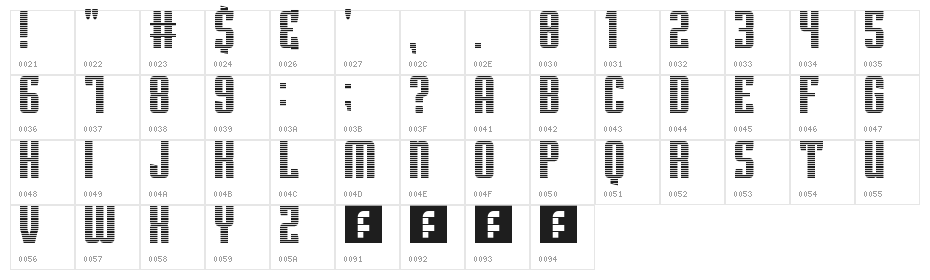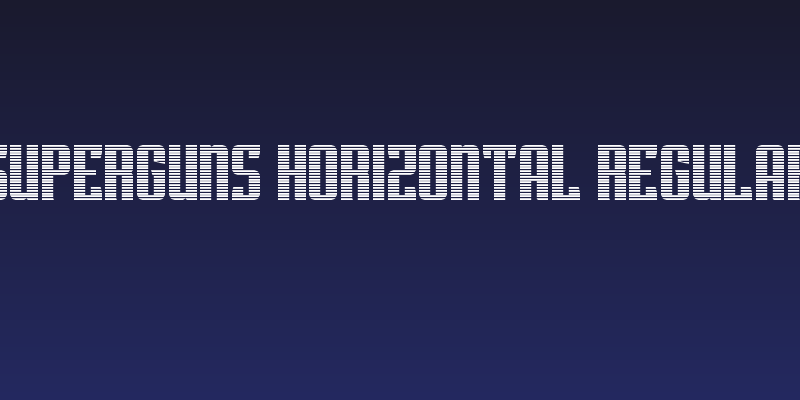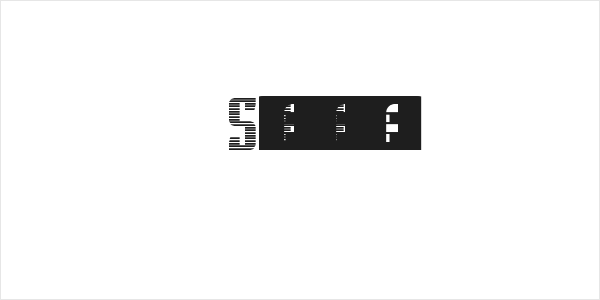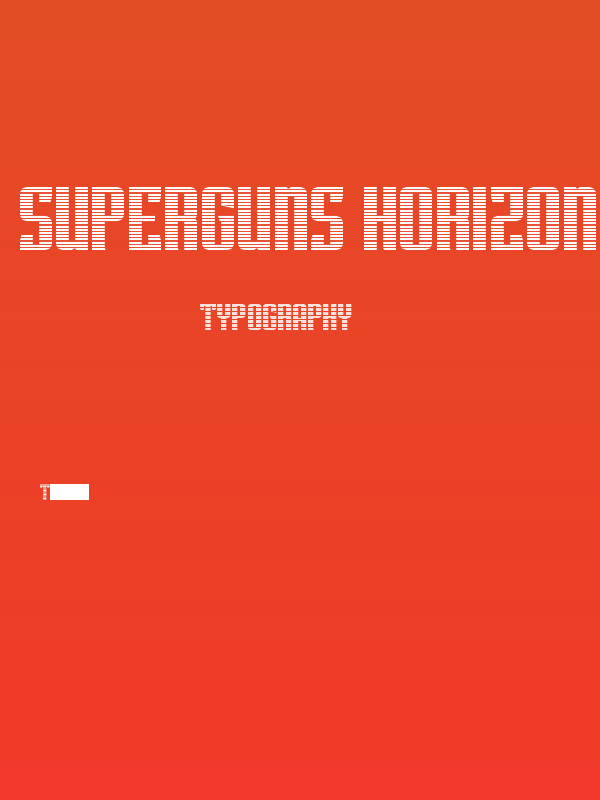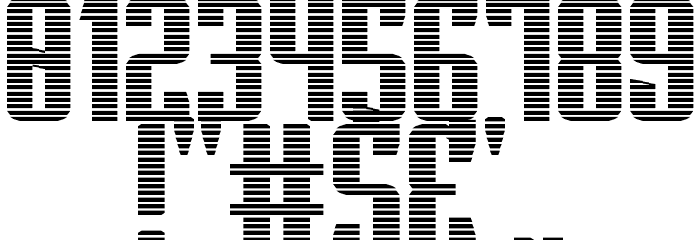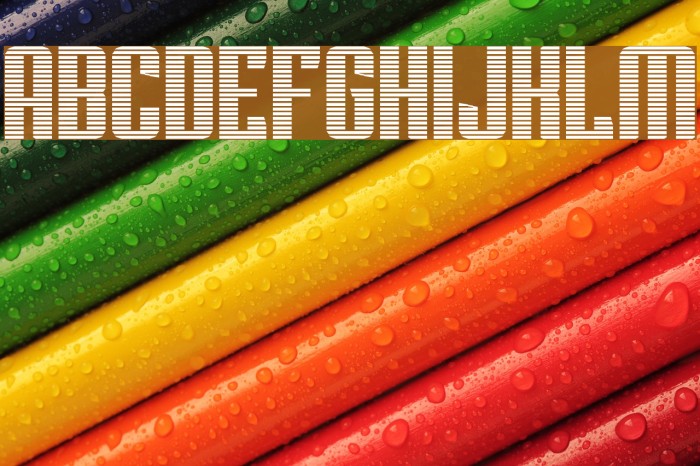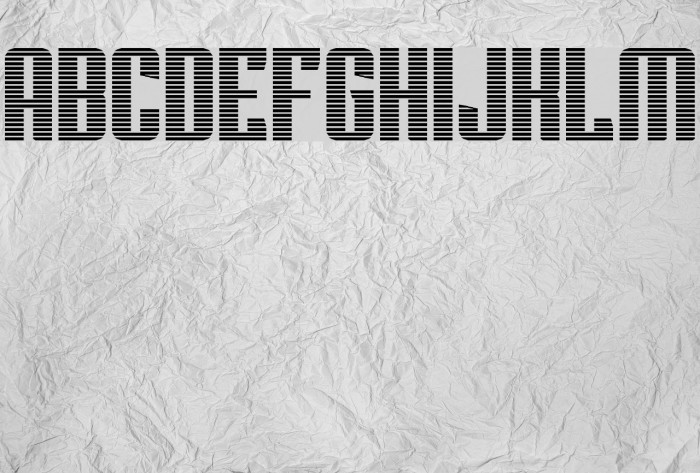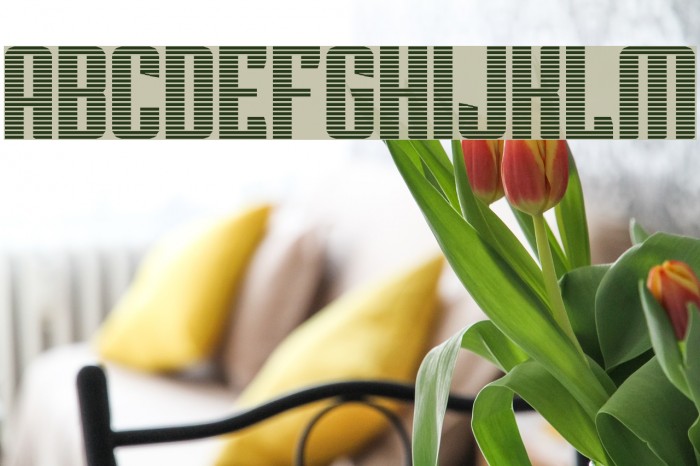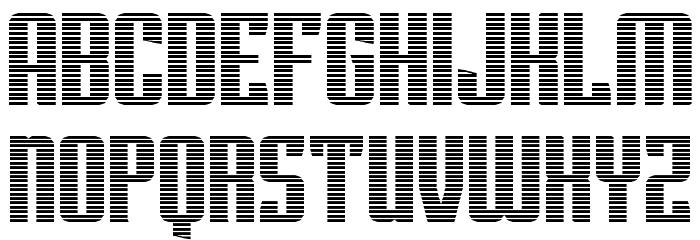
Superguns Horizontal Regular Font
Superguns Horizontal Regular Description
This font features a bold, geometric design with a unique horizontal line pattern running through each character. The uppercase and lowercase letters maintain a consistent width, creating a uniform appearance. The numerals and special characters are designed with the same horizontal line motif, adding to the cohesive look. The font's style is distinctly modern and eye-catching, making it suitable for projects that require a strong visual impact. Its structured form and bold presence make it ideal for headlines or display purposes where readability and style are paramount.
| Proposed Projects | Ideal for posters, branding, logos, and headlines where a modern and striking appearance is desired. |